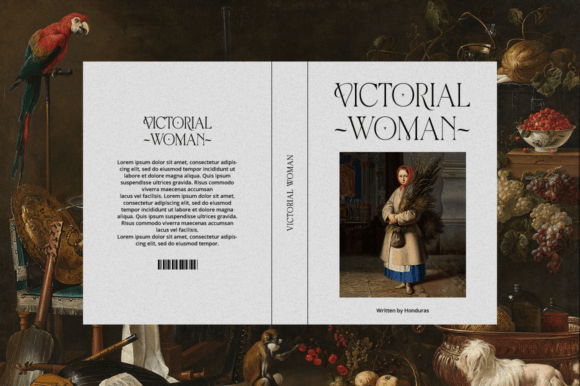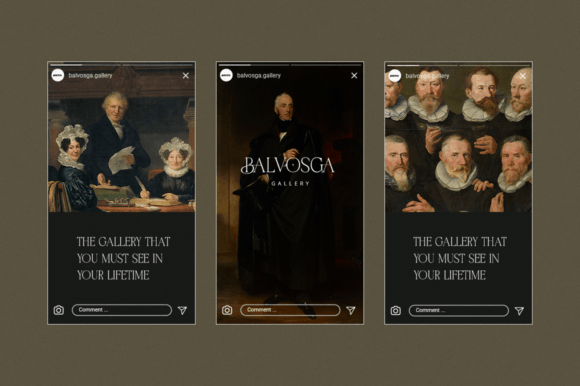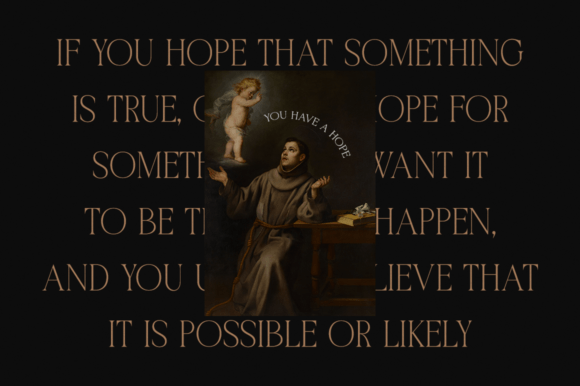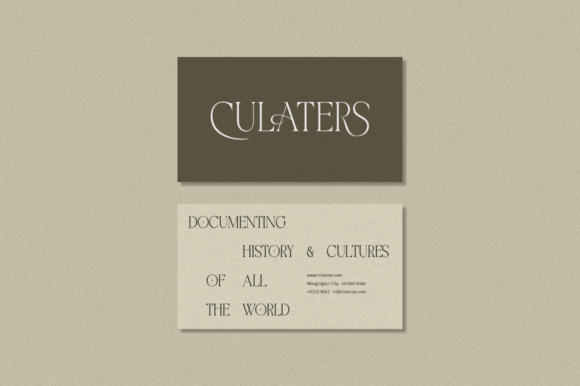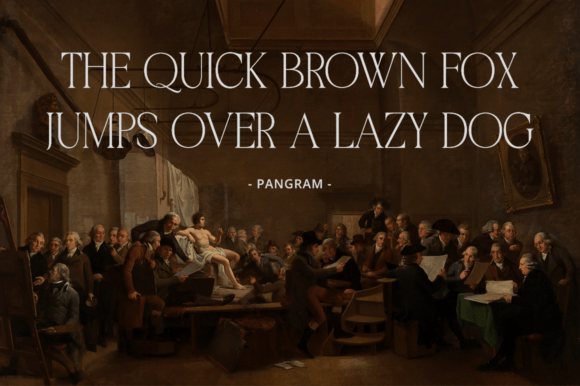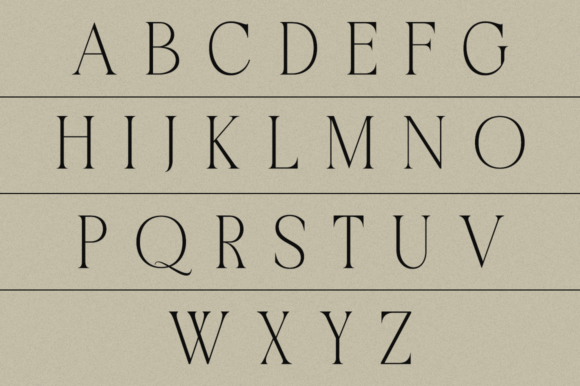
Bachelors Display Font: Elevate Your Designs with a Romantic Twist
In the realm of typography, fonts play a pivotal role in conveying the tone and aesthetic of a design. For those seeking to infuse their projects with a touch of romance and classic elegance, the Bachelors Display font is an exceptional choice. This display serif font, with its inherent romantic vibe, is perfectly suited for designers and crafters looking to make a statement. Let’s dive into the world of Bachelors Display and explore how it can elevate your designs.
The Essence of Bachelors Display Font
Bachelors Display is not just any font; it’s a display serif font that exudes a romantic charm. Its classic serif structure provides a sense of tradition and reliability, while its swashy alternates offer a modern twist, allowing for a wide range of creative expressions. This combination makes Bachelors Display a versatile tool for various display uses, from wedding invitations and event posters to branding and advertising materials.
Key Features of Bachelors Display
- Romantic Vibe: The font’s design is centered around creating a romantic feel, making it perfect for projects that require a touch of elegance and sophistication.
- Swashy Alternates: One of the standout features of Bachelors Display is its inclusion of swashy alternates. These provide designers with the flexibility to add a unique flair to their designs, making each project stand out.
- Classic Serif Structure: The traditional serif structure of the font ensures that it remains highly legible, even at larger sizes, making it ideal for display purposes.
- Versatility: Whether you’re working on a wedding invitation, a movie poster, or a brand logo, Bachelors Display can adapt to various design needs, offering a wide range of applications.
Applications of Bachelors Display Font
The versatility of Bachelors Display makes it suitable for a myriad of design projects. Here are some of the areas where this font truly shines:
- Wedding and Event Design: Create stunning wedding invitations, save-the-date cards, and event posters that capture the essence of romance and celebration.
- Branding and Logo Design: For businesses in the luxury, fashion, or lifestyle sectors, Bachelors Display can help create a brand identity that communicates elegance and sophistication.
- Advertising and Marketing Materials: Use Bachelors Display to craft compelling headlines and titles for advertisements, flyers, and brochures that demand attention.
- Packaging Design: Elevate product packaging with a touch of class and romance, making your products stand out on store shelves.
Tips for Using Bachelors Display Effectively
To maximize the impact of Bachelors Display in your designs, consider the following tips:
- Pair with Complementary Fonts: For body text, pair Bachelors Display with a clean, sans-serif font to create contrast and ensure readability.
- Experiment with Swashy Alternates: Don’t be afraid to get creative with the swashy alternates to add a personal touch to your designs.
- Adjust Size and Color: Play around with the size and color of Bachelors Display to achieve the desired level of emphasis and aesthetic balance in your designs.
Bachelors Display font is a powerful tool for designers and crafters aiming to infuse their projects with a romantic and classic vibe. Its unique blend of traditional serif structure and modern swashy alternates offers endless possibilities for creative expression. Whether you’re designing for a wedding, a brand, or an advertising campaign, Bachelors Display is sure to make your work stand out. Embrace the elegance and versatility of Bachelors Display, and let your designs speak with a voice of romance and sophistication.